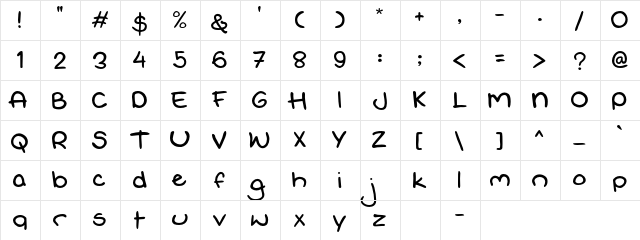
Kidplay Regular
| Designer | ZetDesign (Ahmad Zulfikar Ali) |
Design Context for Kidplay Typeface
Kidplay is a composed and adaptable typeface that performs quietly and consistently across a wide range of design contexts.